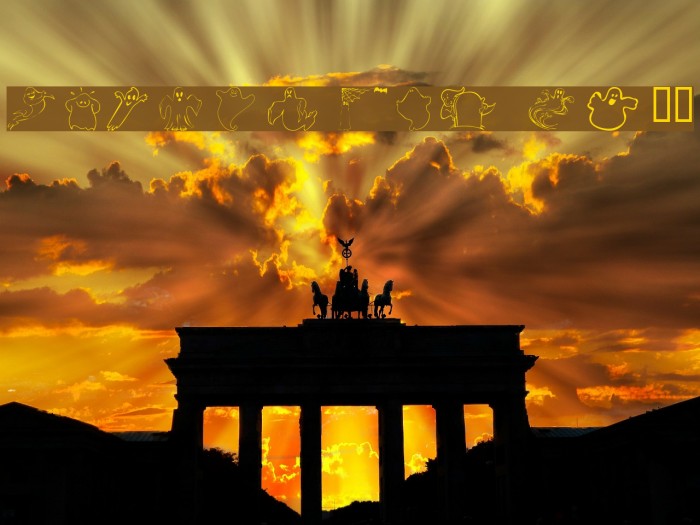
101! A Ghostly Font Font
101! A Ghostly Font Description
This font features a playful and whimsical design with each character represented by a unique ghost illustration. The characters are creatively crafted to resemble various ghostly figures, each with distinct expressions and poses, adding a fun and spooky element to the text. The font is highly decorative, making it ideal for Halloween-themed projects or any design requiring a touch of the supernatural. The illustrations are detailed and imaginative, capturing the essence of playful spookiness. The overall style is light-hearted and cartoonish, perfect for engaging a younger audience or adding a quirky twist to designs.
| Proposed Projects | Ideal for Halloween invitations, themed posters, children's books, and playful branding. |